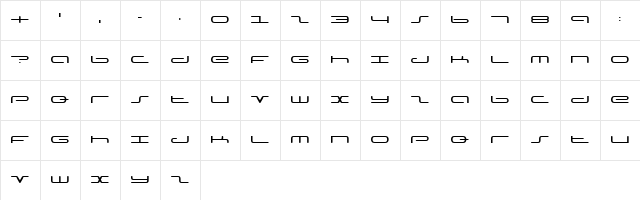
Captain Podd Regular Free Font
Captain Podd Regular
Captain Podd Family
Captain Podd Regular
Design Context for Captain Podd
Captain Podd is a composed and adaptable typeface that performs quietly and consistently across a wide range of design contexts.